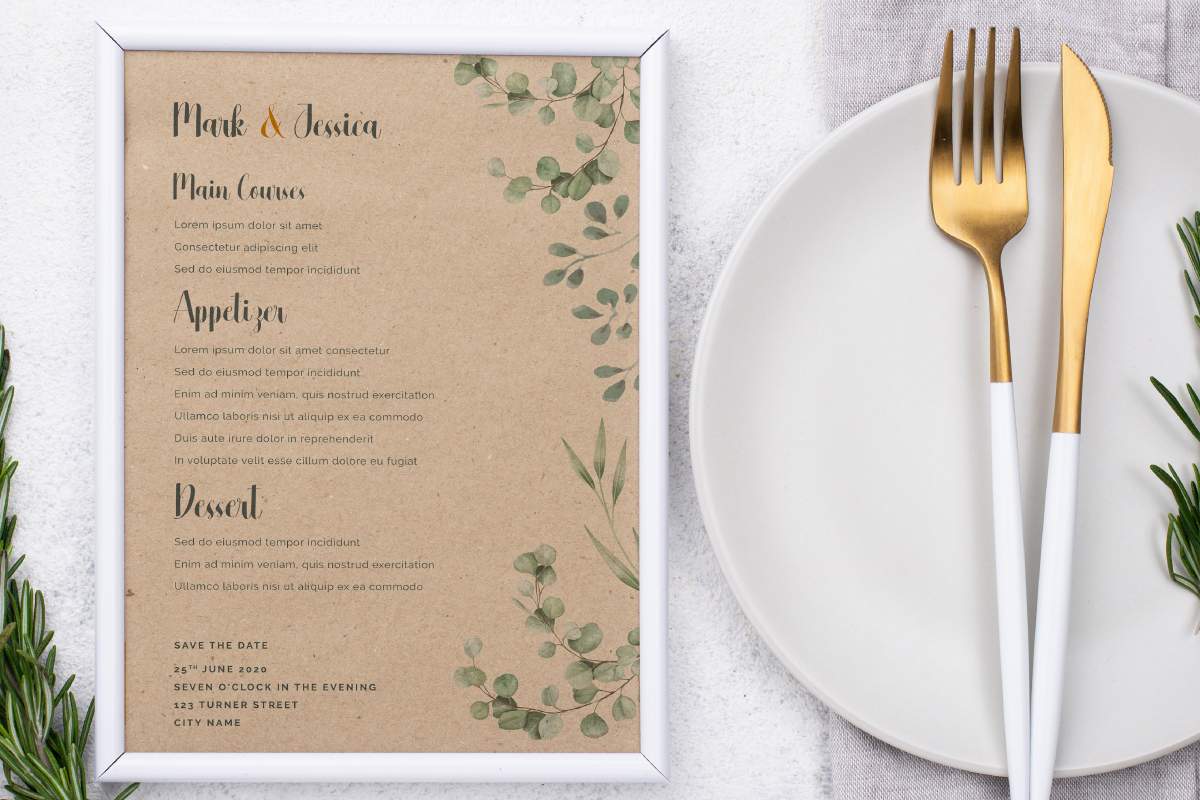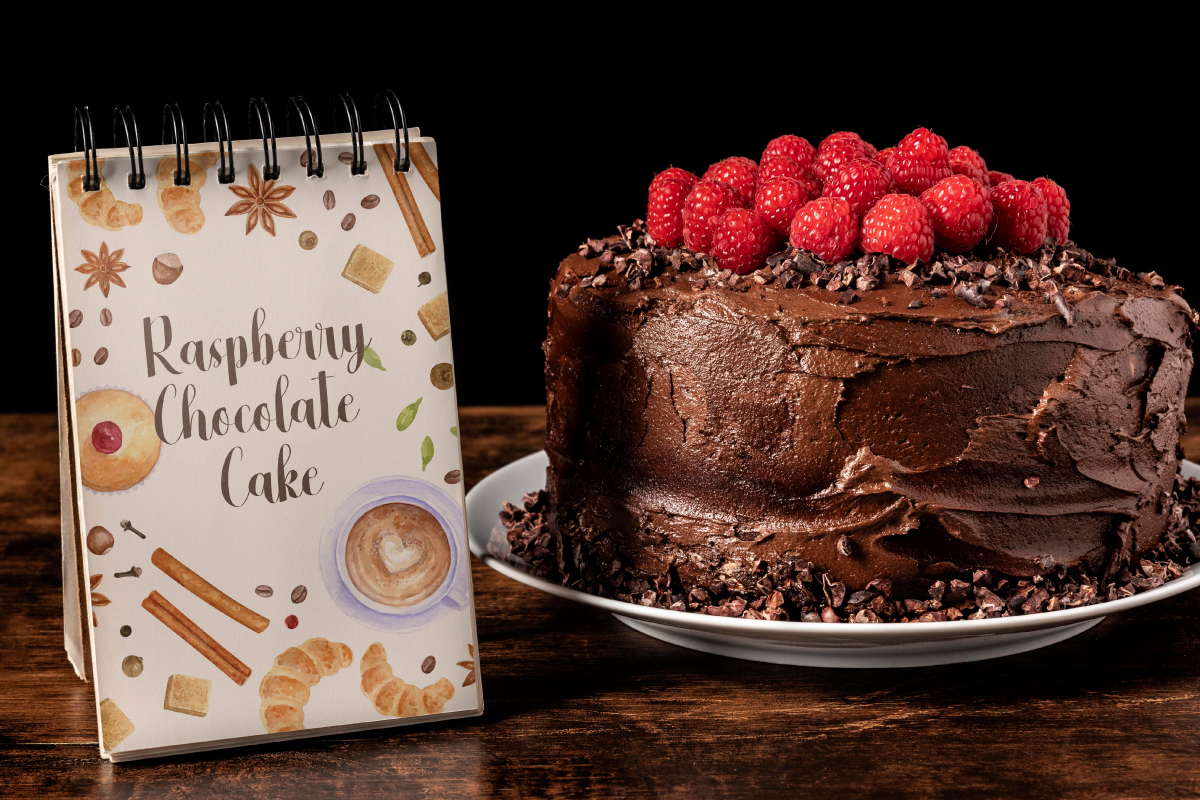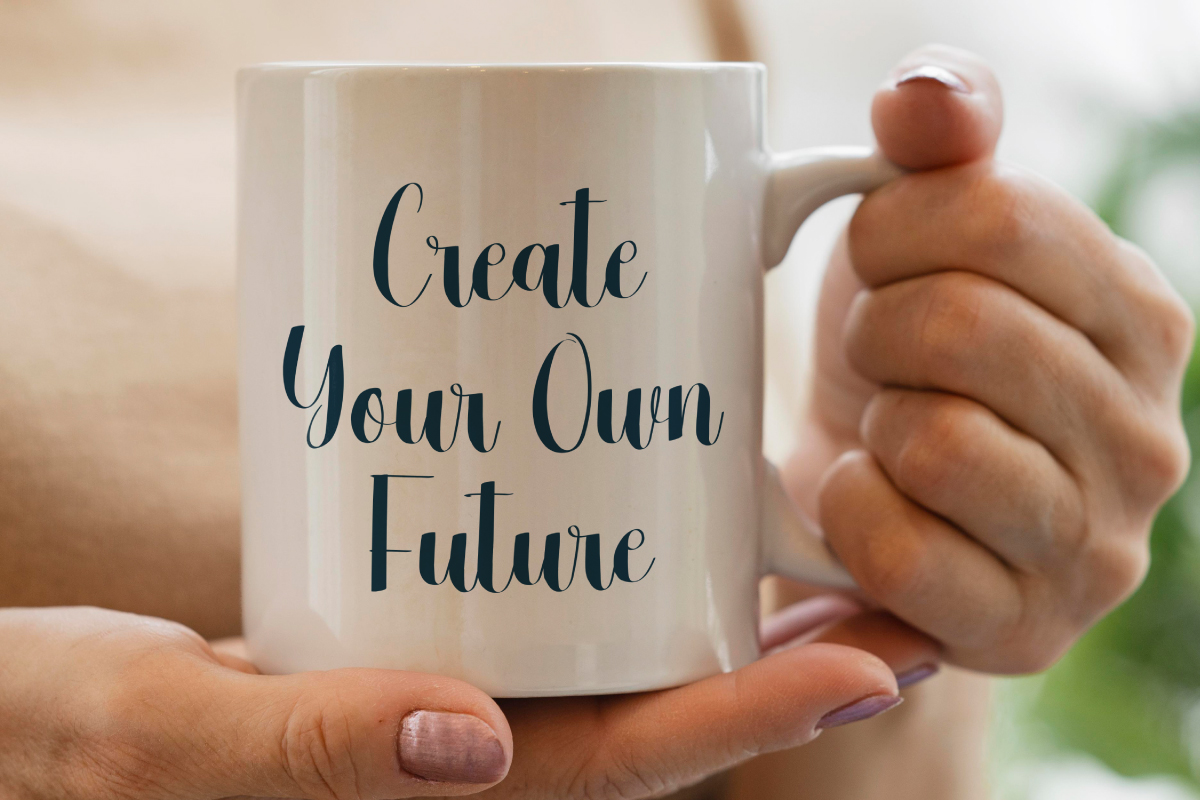
Better Change Font
Better Change Script Font is a classic script font with calligraphy look. It has a classy and easy to read that will add to the beauty of your designs, such as cover, embossed design, invitation, magazine catalog, menu flyer, product packaging, quote, screen print, stationery, sticker, title, watermark, and much more!